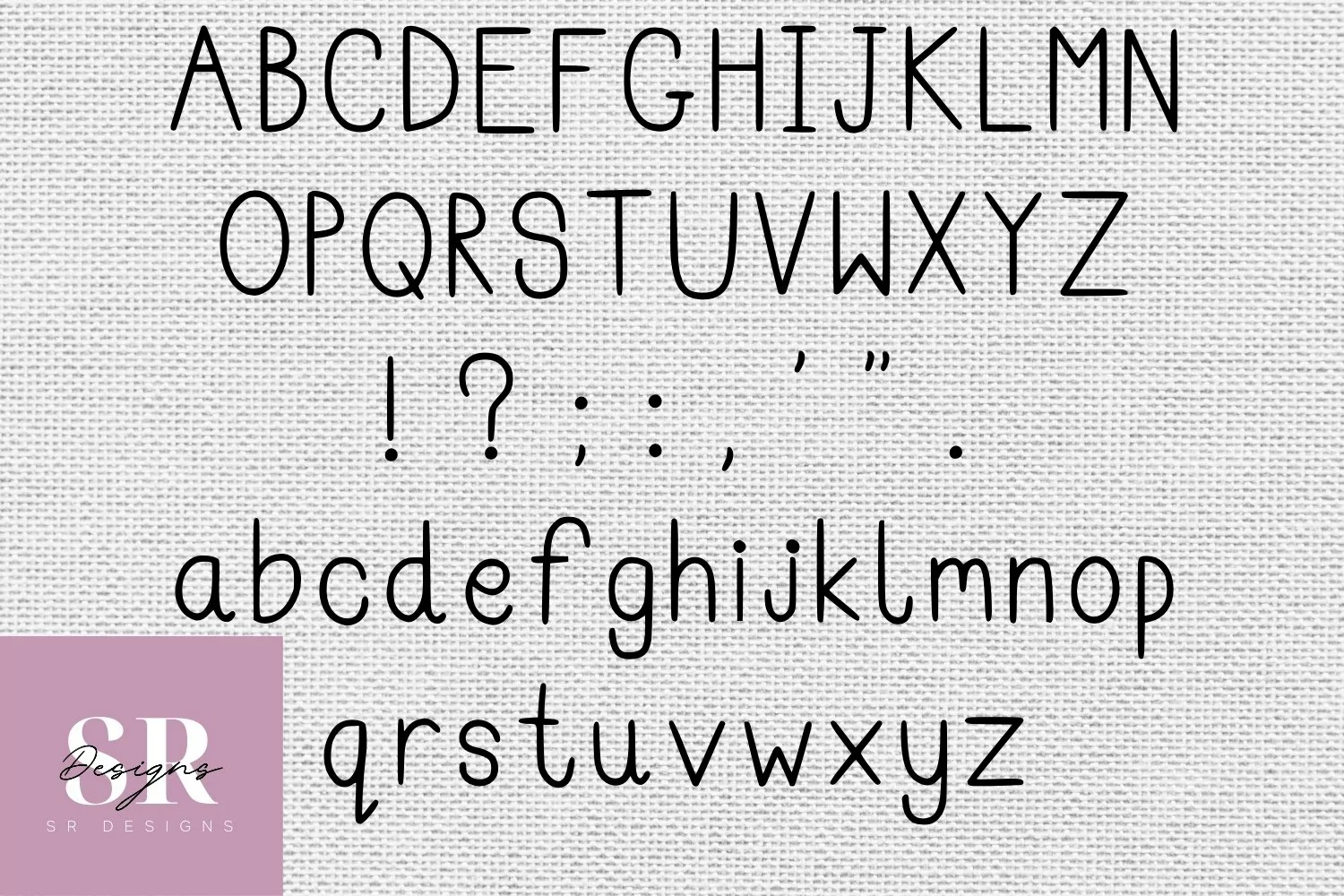
Introducing ‘Cute Monogram’ a handwritten Monoline font.
This font includes all the letters in lowercase and uppercase, and some of the basic punctuation (shown in picture) in .otf and .ttf format.